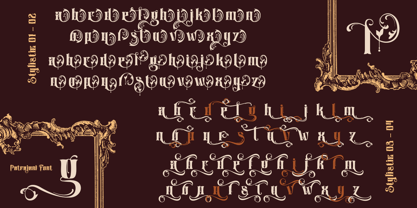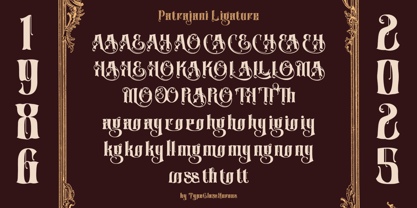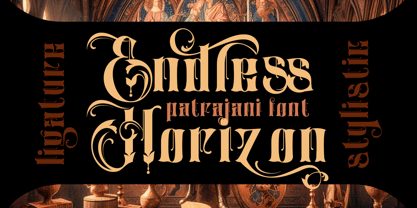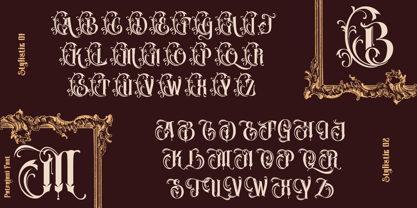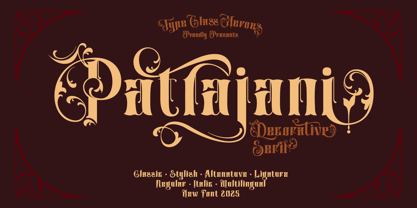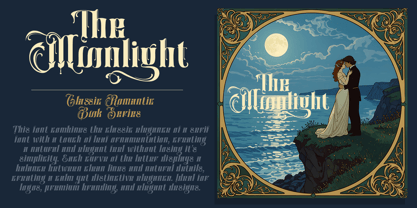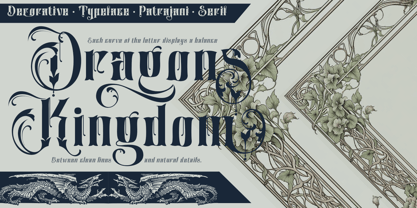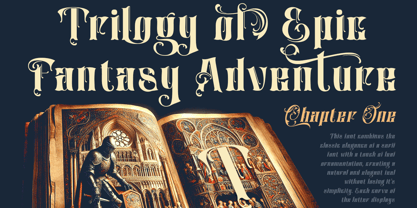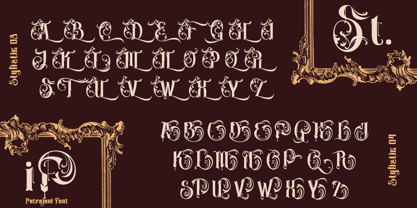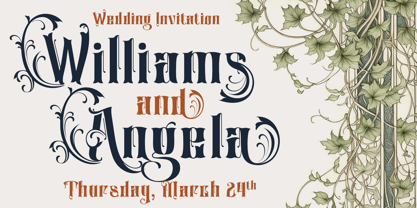
Patrajani
by TypeClassHeroes
Introducing Patrajani decorative serif, This font combines the classic elegance of a serif font with a touch of leaf ornamentation, creating a natural and elegant feel without losing it's simplicity. Each curve of the letter displays a balance between clean lines and natural details, creating a calm yet distinctive elegance. Perfect to be applied in various formal forms such as invitations, labels, restaurant menus, logos, make up, stationery, novels, magazines, books, greeting / wedding cards, packaging, labels or any type of advertising purpose makes it ideal for whether you’re creating digital content or printed materials.